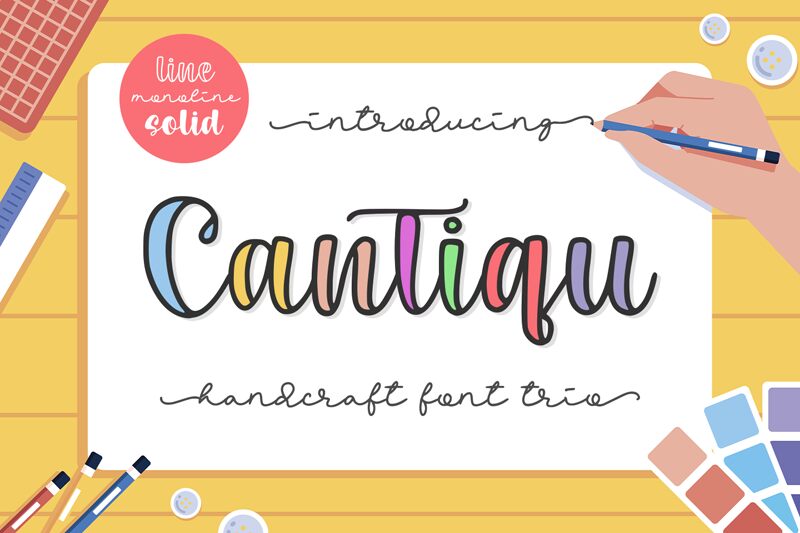
Cantiqu Line font is a free handwritten font designed by Abo Daniel Studio. Elegant, decorative, and stylish are just a few of the words to describe this outlined script display font. The contemporary design can be compared to classic writing that adds a vintage feel to its otherwise modern shapes. Cantiqu Line delivers an expressive personalized aesthetic that almost no one could resist.
It comes with three different fonts:
- CANTIQU LINE
- CANTIQU SOLID
- CANTIQU MONOLINE